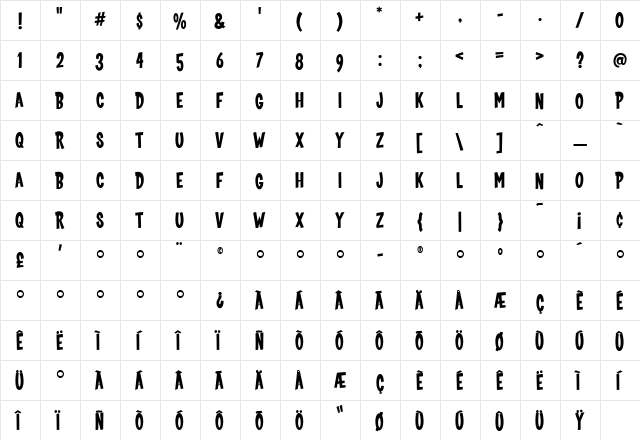
CoopBold Medium Font Preview
CoopBold Medium
CoopBold Medium Font Details
| Foundry | Brand Design Co., Inc |
Design Context for CoopBold Typeface
CoopBold is a composed and adaptable typeface that performs quietly and consistently across a wide range of design contexts. The heavy weight commands attention and anchors typographic hierarchies.